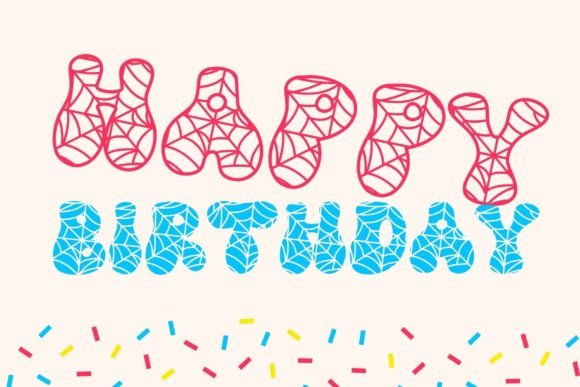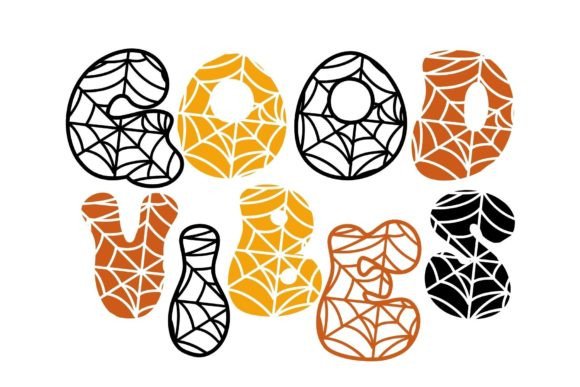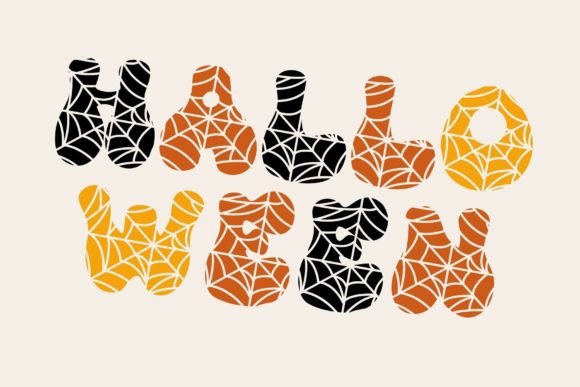
Introduction to Retro Spider Web Font
Retro Spider Web is a scary halloween and fun decorative display font.
It embodies playfulness and authenticity and is the perfect choice for all your favorite Halloween projects, or even for blog posts, logos, branding, ads, invitations, greeting cards, planners, photo albums, decorations, and much more Add it to any of your designs, and enjoy the results.